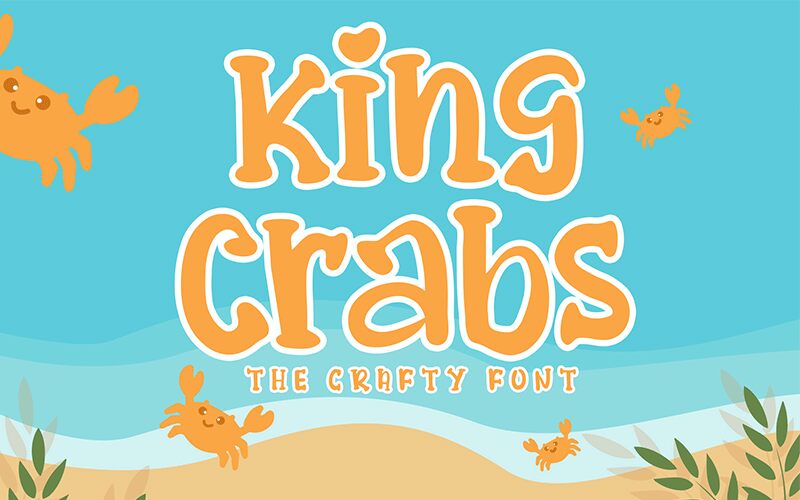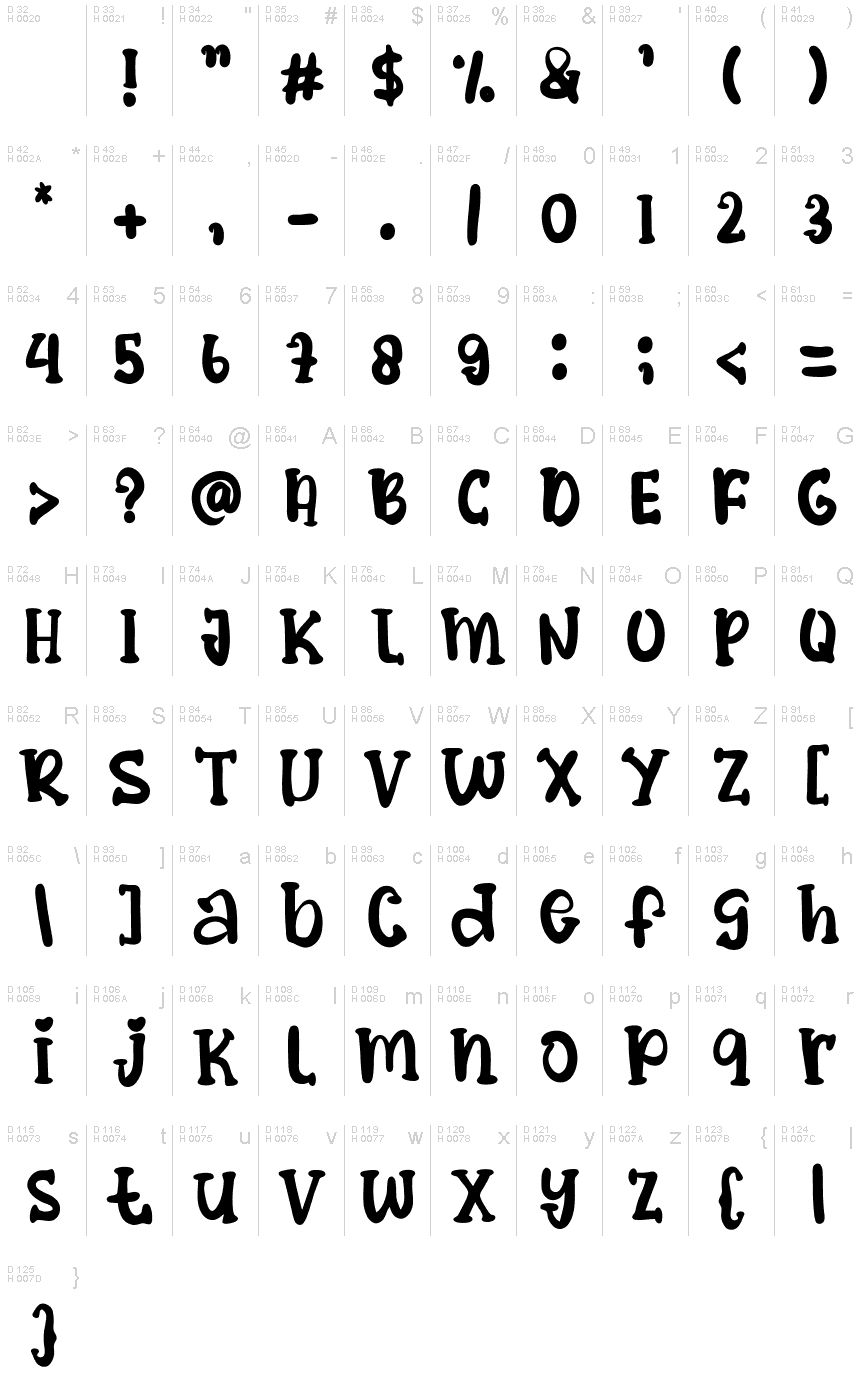
King Crabs
King Crabs is a playful and dynamic display font designed by Share Font. Its cartoon style and semi-bold weight make it perfect for projects that require a fun and lighthearted touch. Use King Crabs on posters, invitations, packaging, or even children's books to add a touch of whimsy to your design. This versatile font can also be used for branding projects that need a unique and memorable typeface. With its bold letters and quirky curves, King Crabs will make your designs stand out from the crowd.